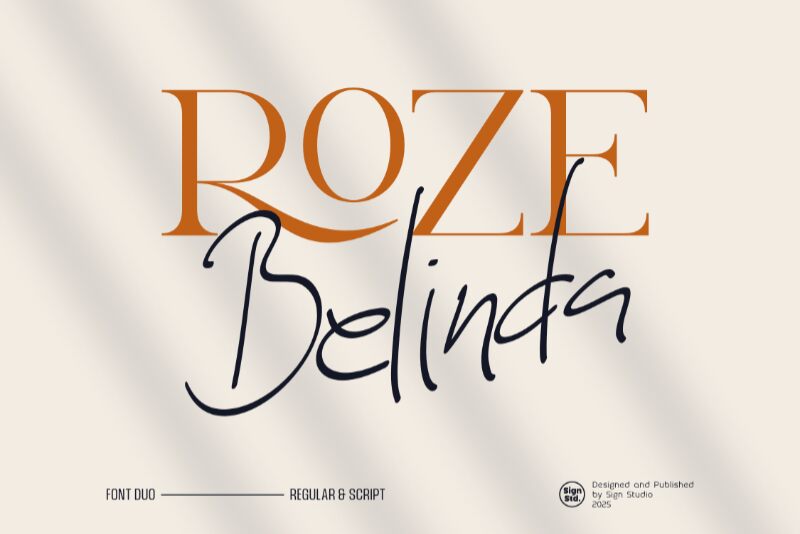
Roze Belinda font family by Sign Studio offers a sophisticated, modern touch with its harmonious blend of elegance and style. This free serif font family is characterized by its rich contrast and dynamic appearance, making it an artistic yet versatile choice. The font styles in this family provide variations that resonate with both classic and contemporary aesthetics.
Perfect for branding projects, Roze Belinda shines in logos, business cards, and letterheads. Its elegant flair is a great fit for invitations, book covers, magazines, and fashion-related content. Use it in website headers, social media posts, advertisements, or product packaging for a stylish visual impact.